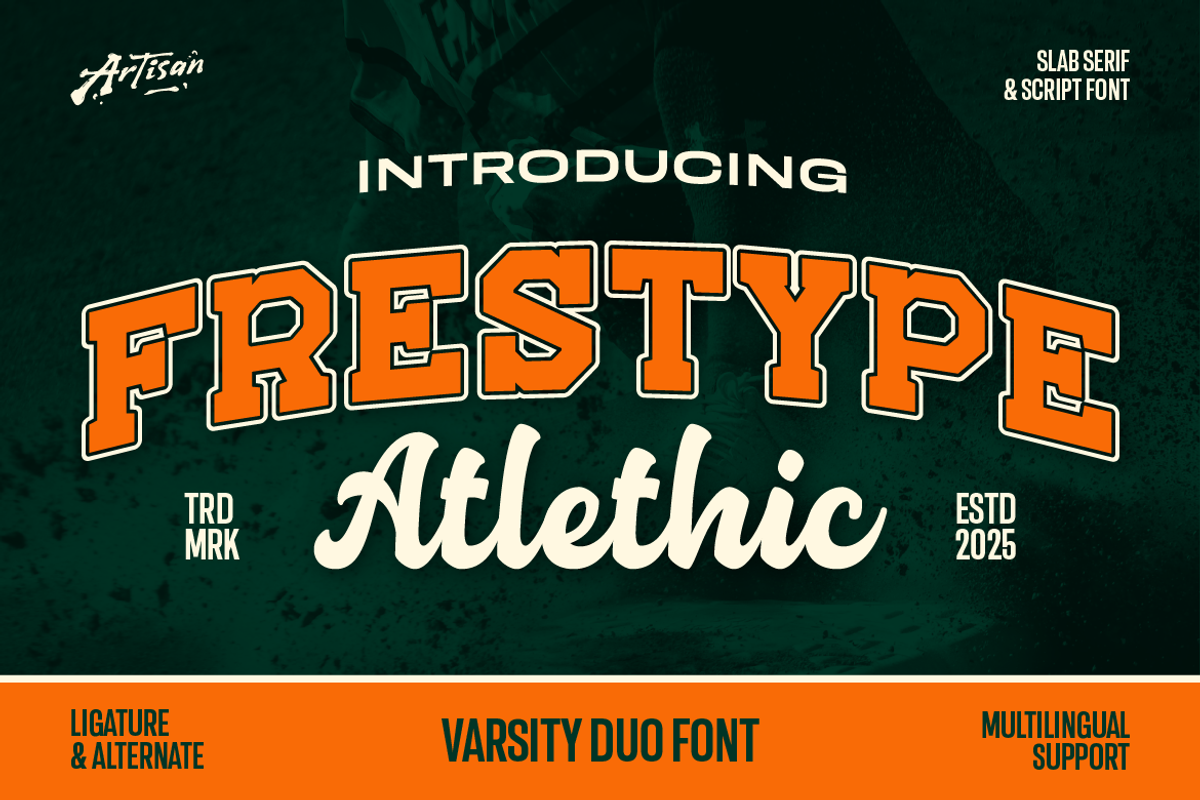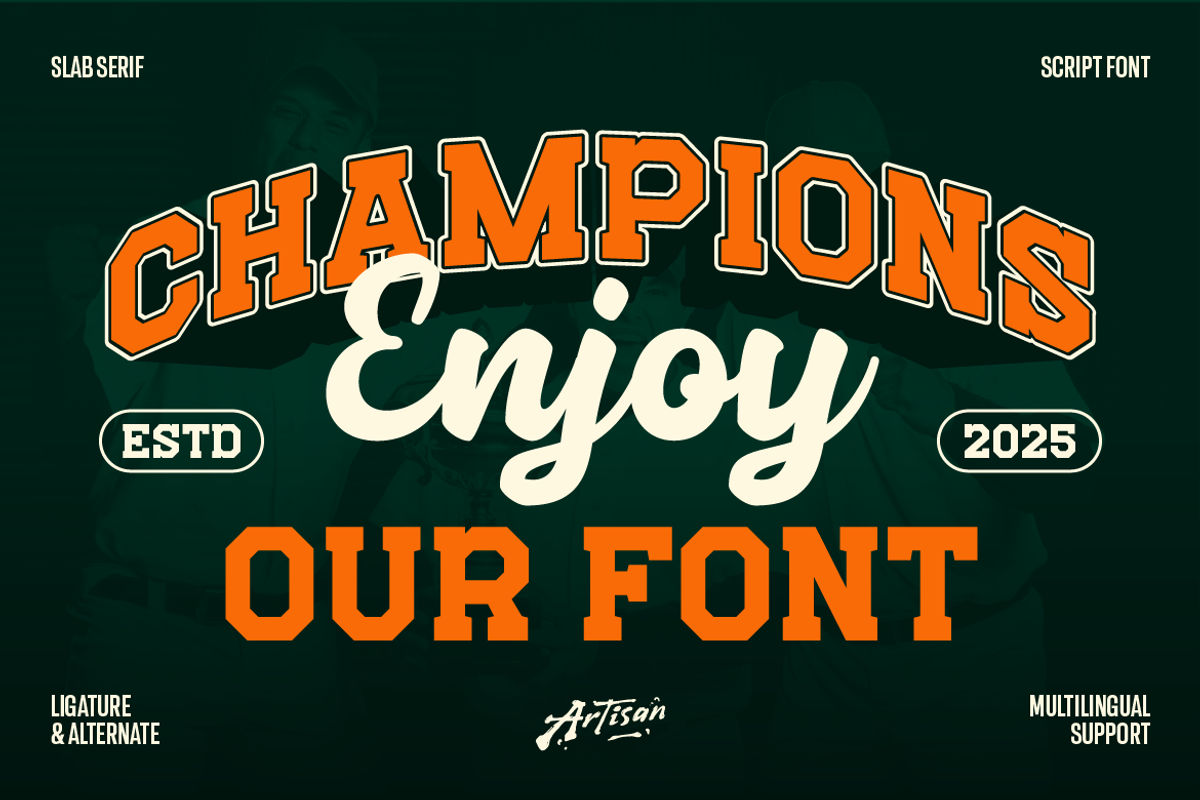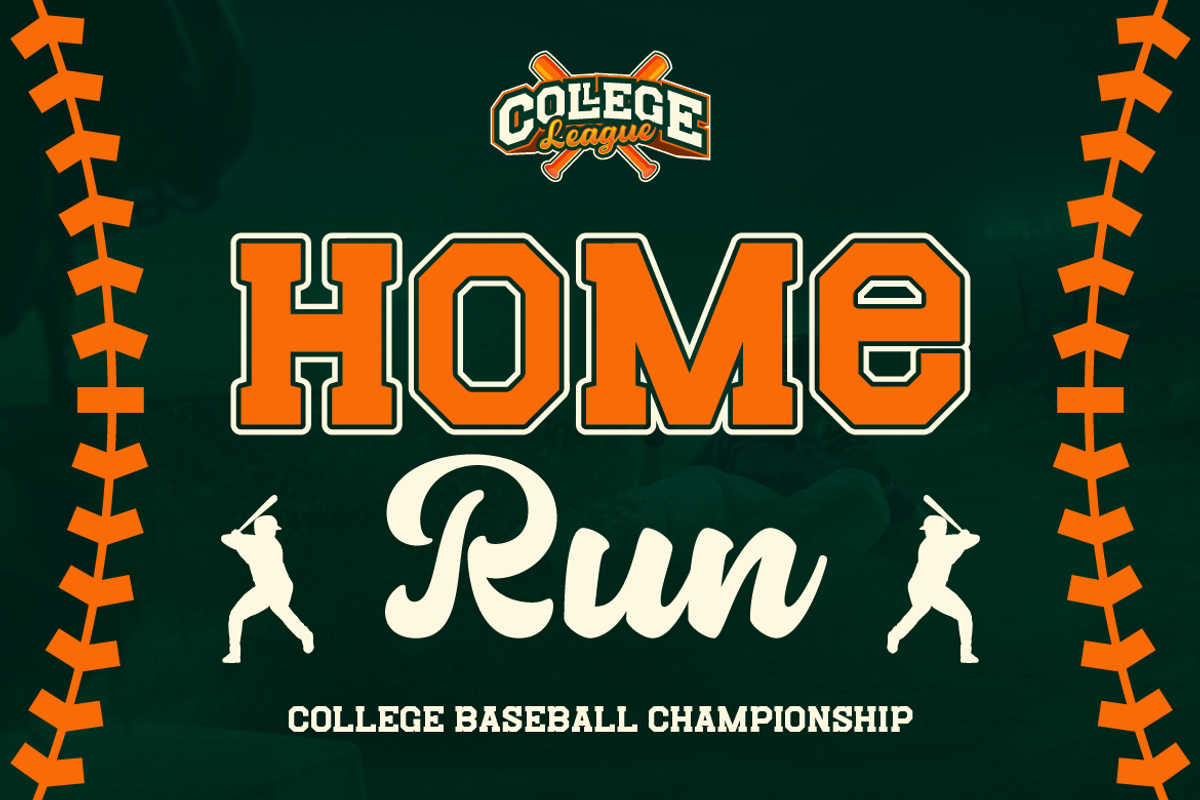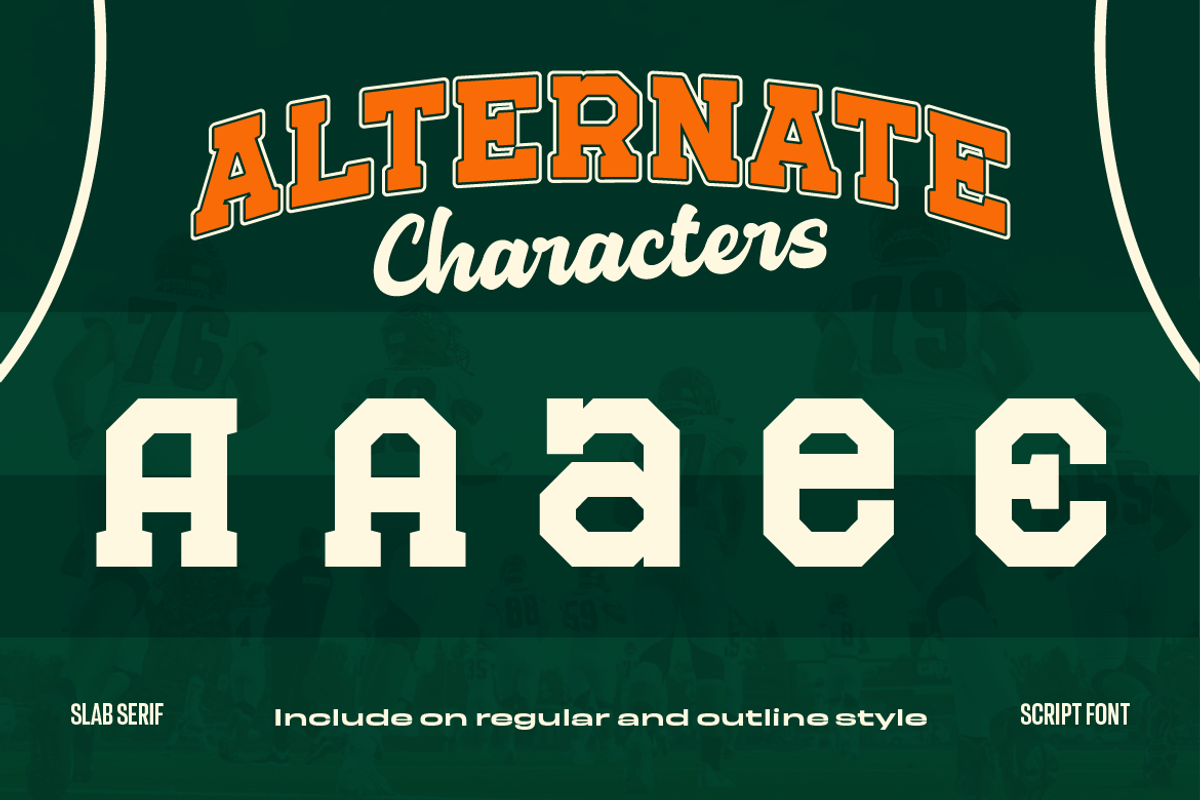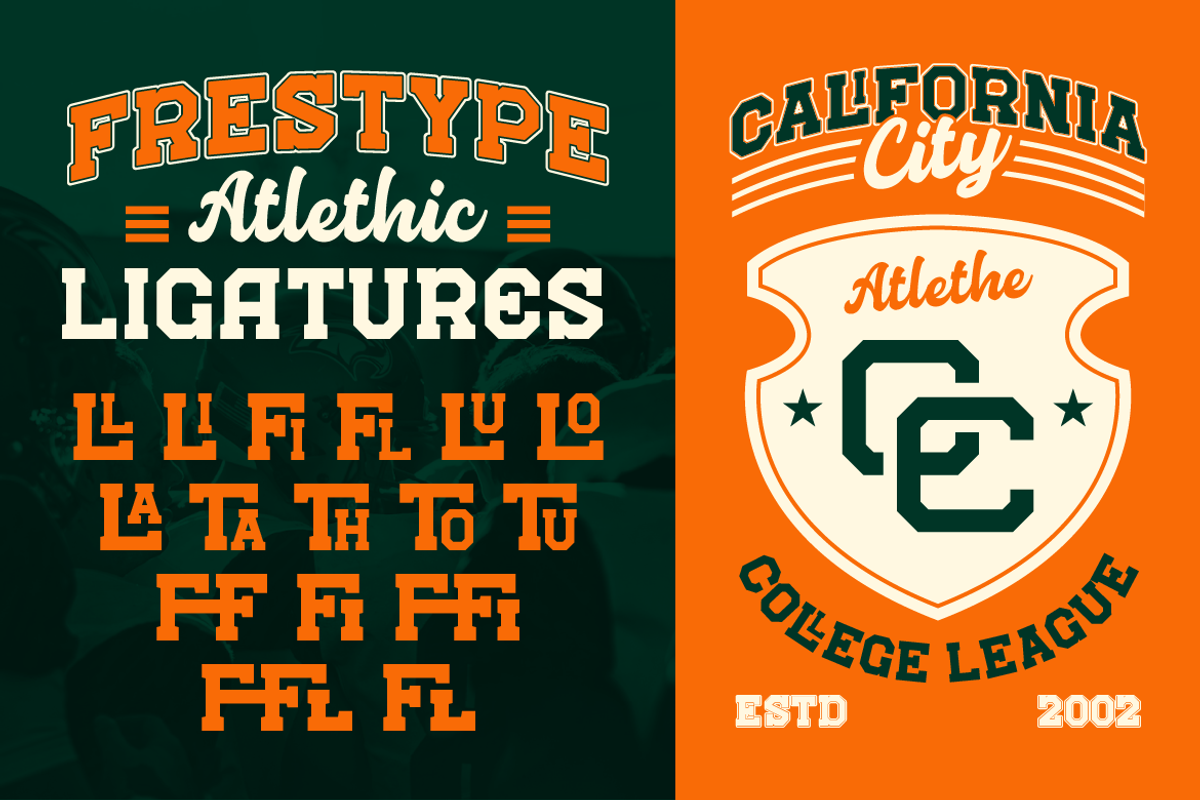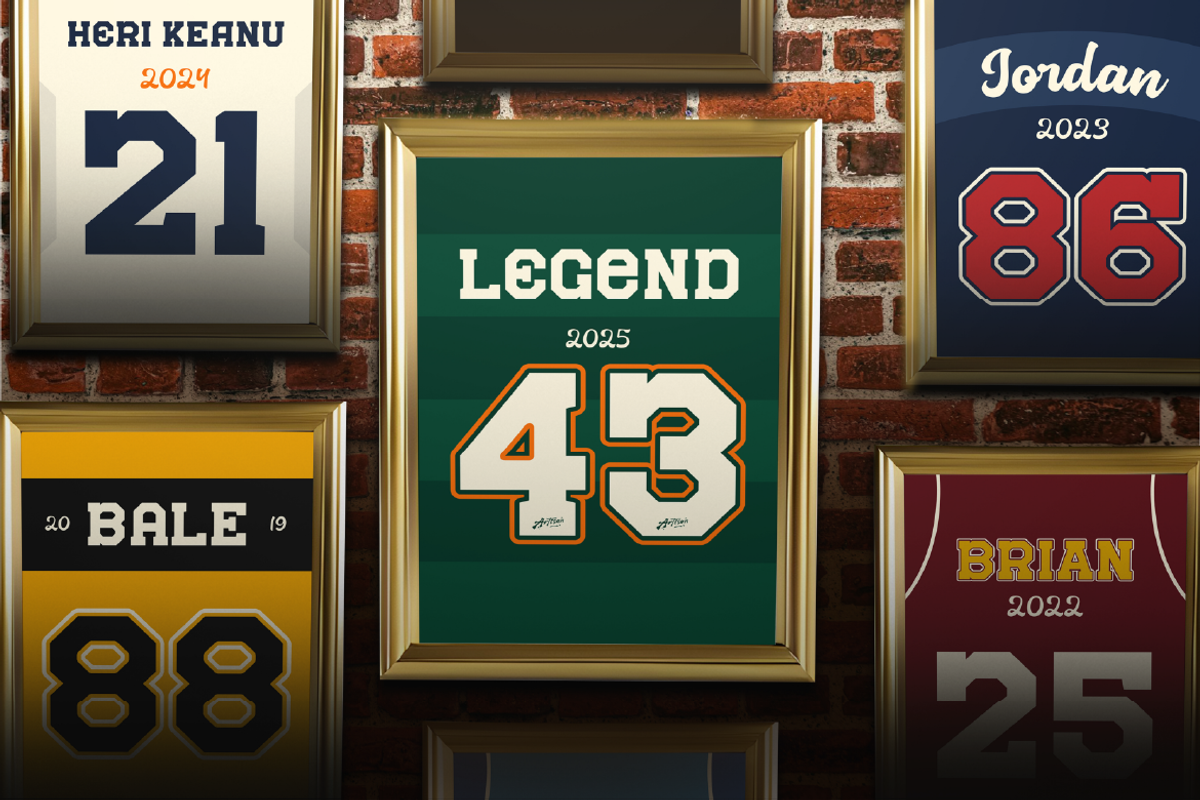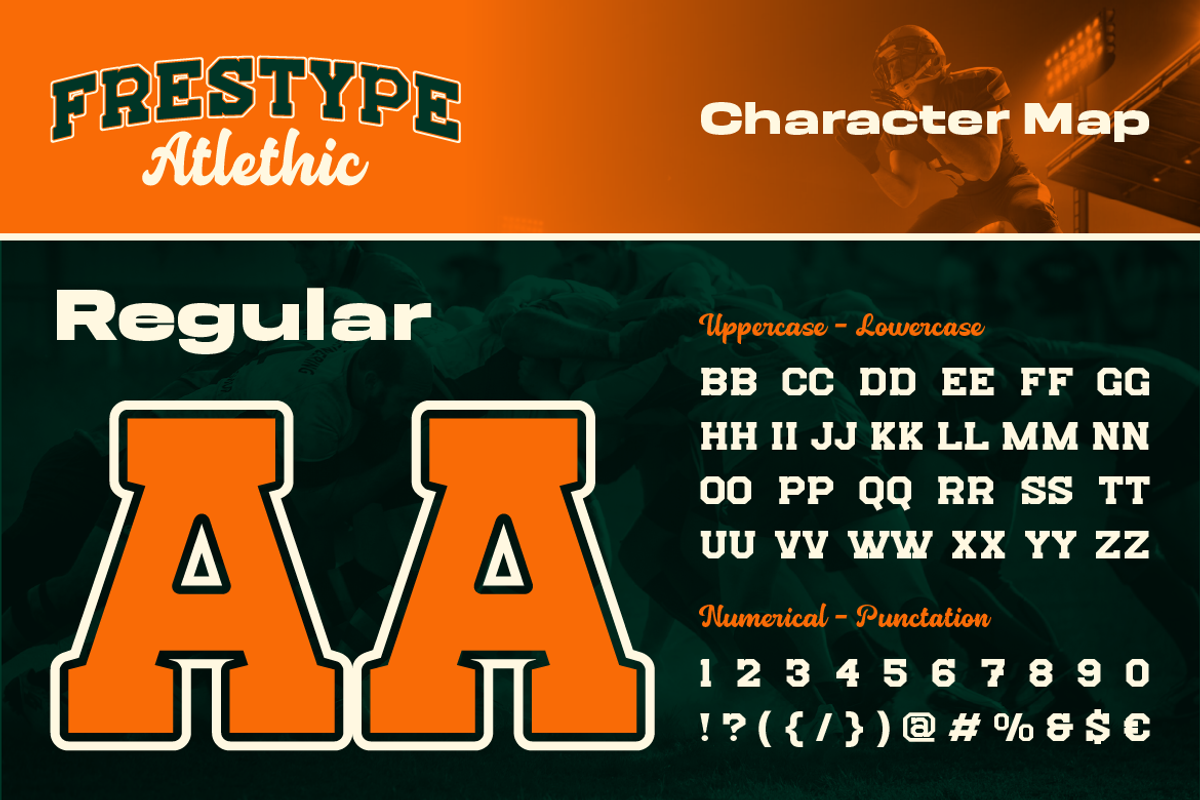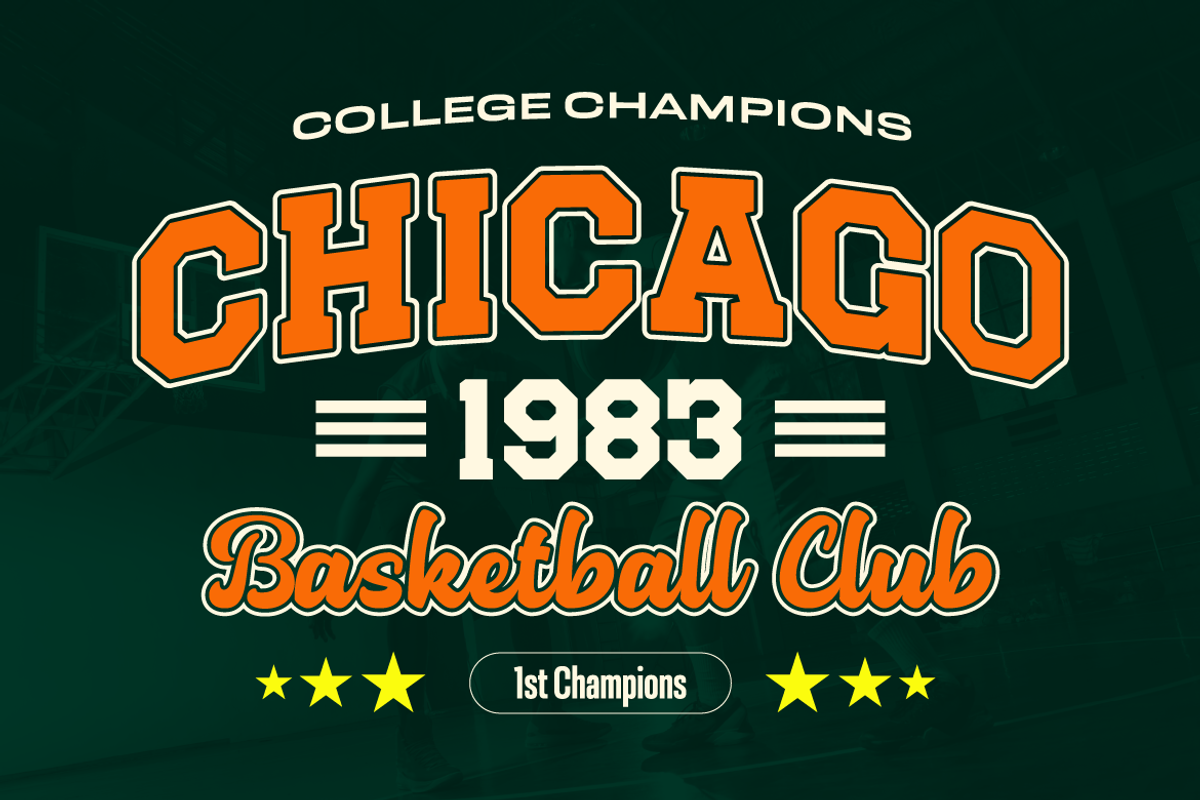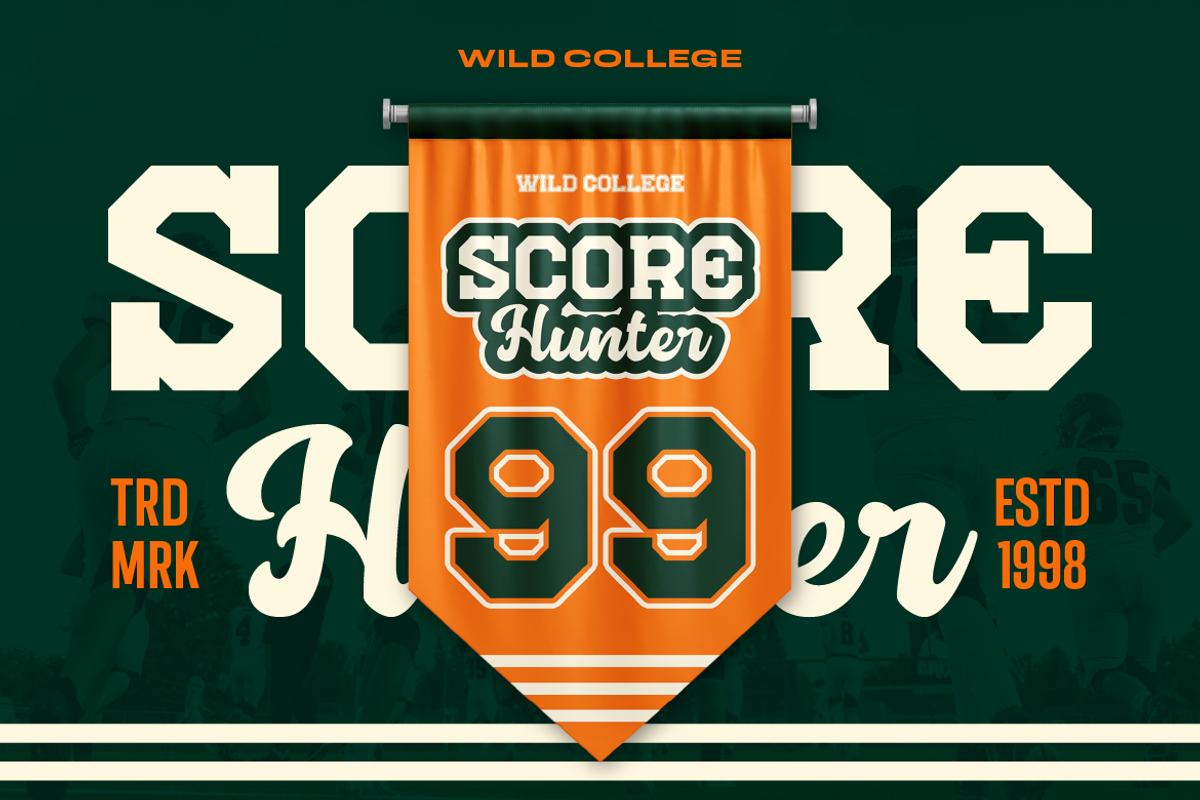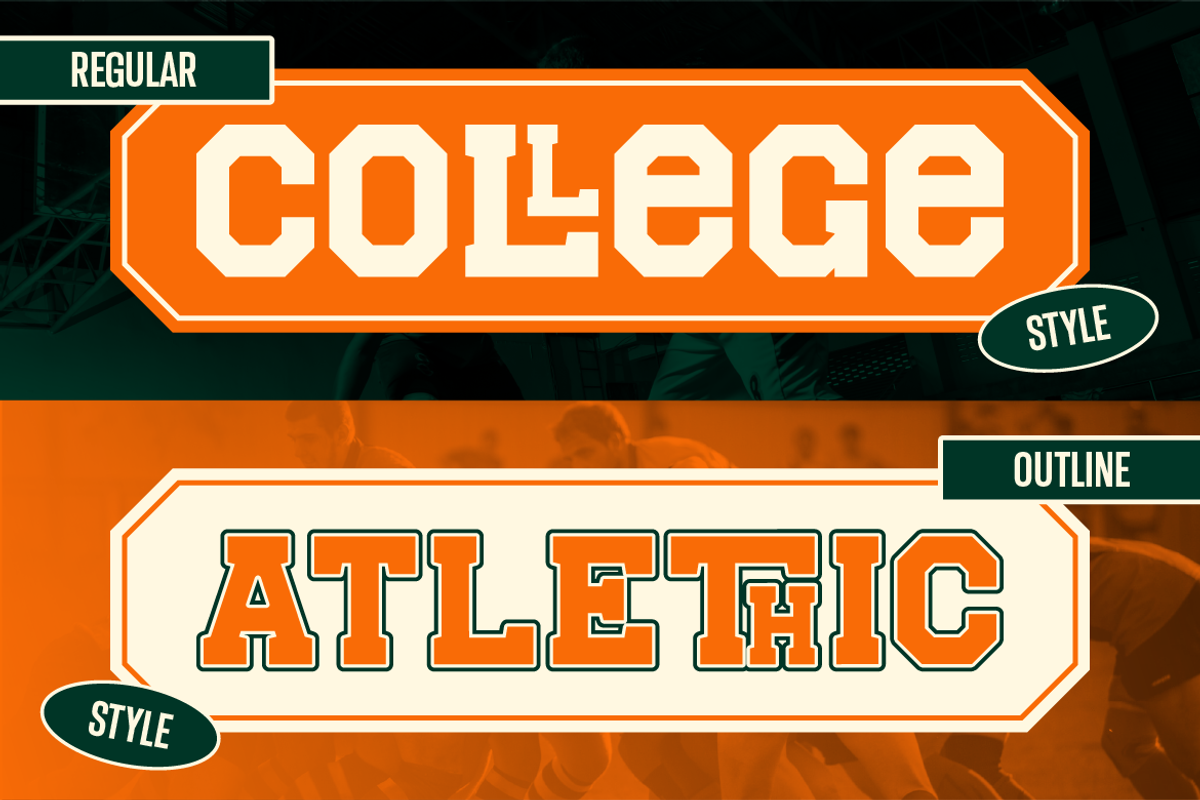
Frestype Atlethic
Meet Frestype Atlethic, your new varsity MVP. This duo font brings the full stadium energy packed in two styles: a bold slab serif varsity style and a smooth script lettering that feels like a signature on a championship jersey. Designed with punchy outlines, sharp angles, and a strong athletic vibe, Frestype Atlethic is made for anything sports related from basketball, college branding, football posters, esports team logos, fan banners, scoreboards, and many more. If it screams team spirit, this font belongs there. It also comes with ligatures & alternates for extra flair, multilingual support, and a full set of punctuation, so you can design like a pro with zero limits. Perfect for sports branding, jersey numbers & names, school banners, editorial magazine layouts, apparel prints and event posters & signage. Get ready to boost your design game and bring the locker room hype straight to your layouts.